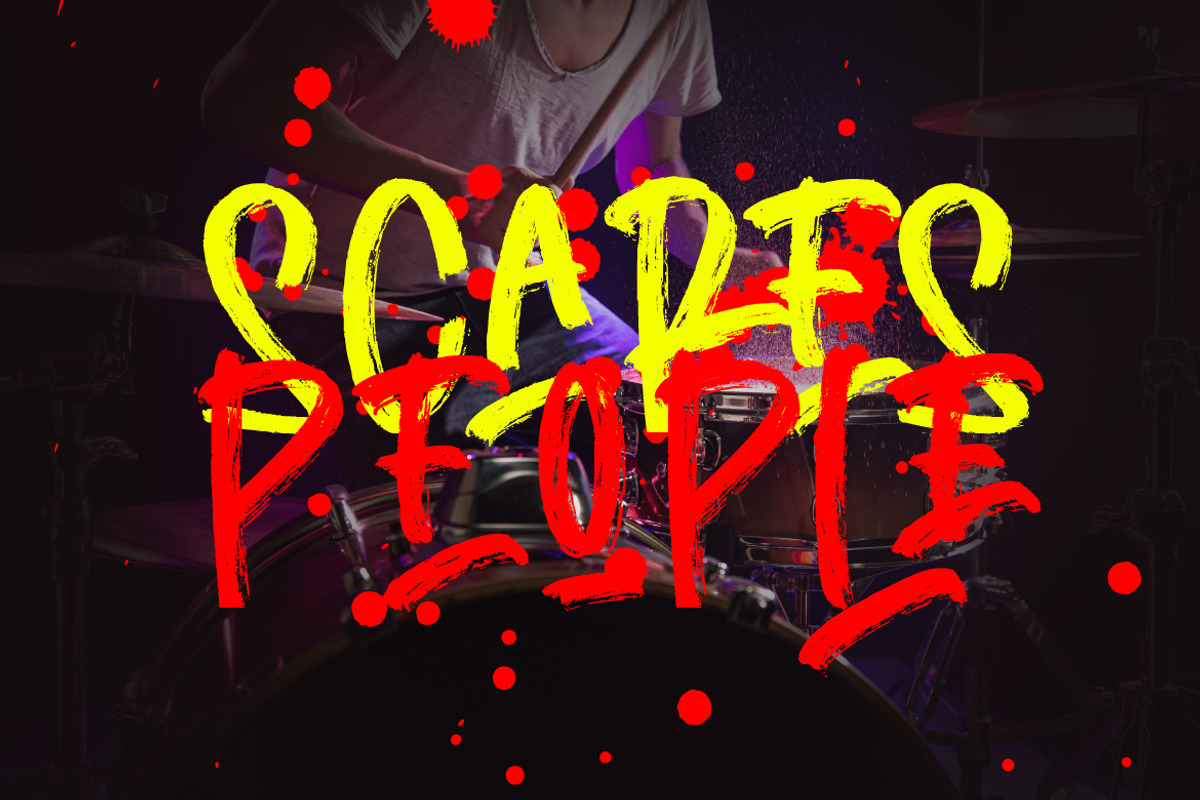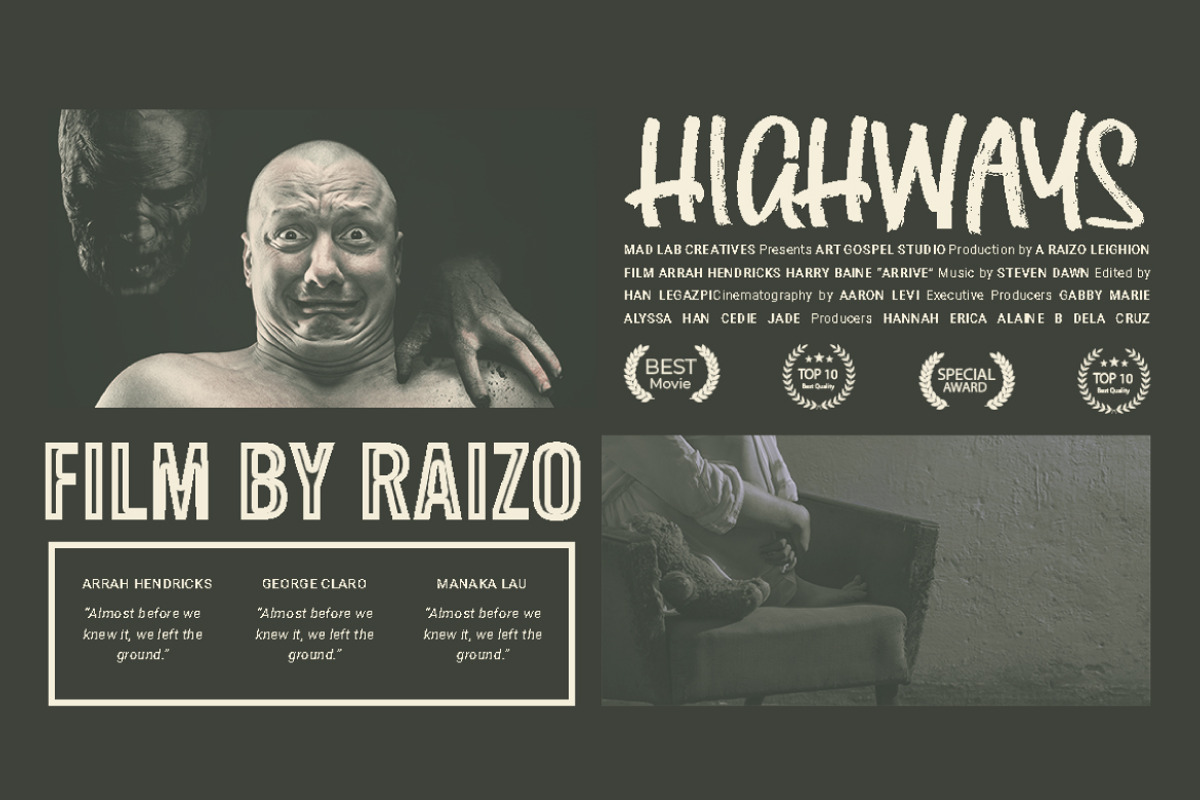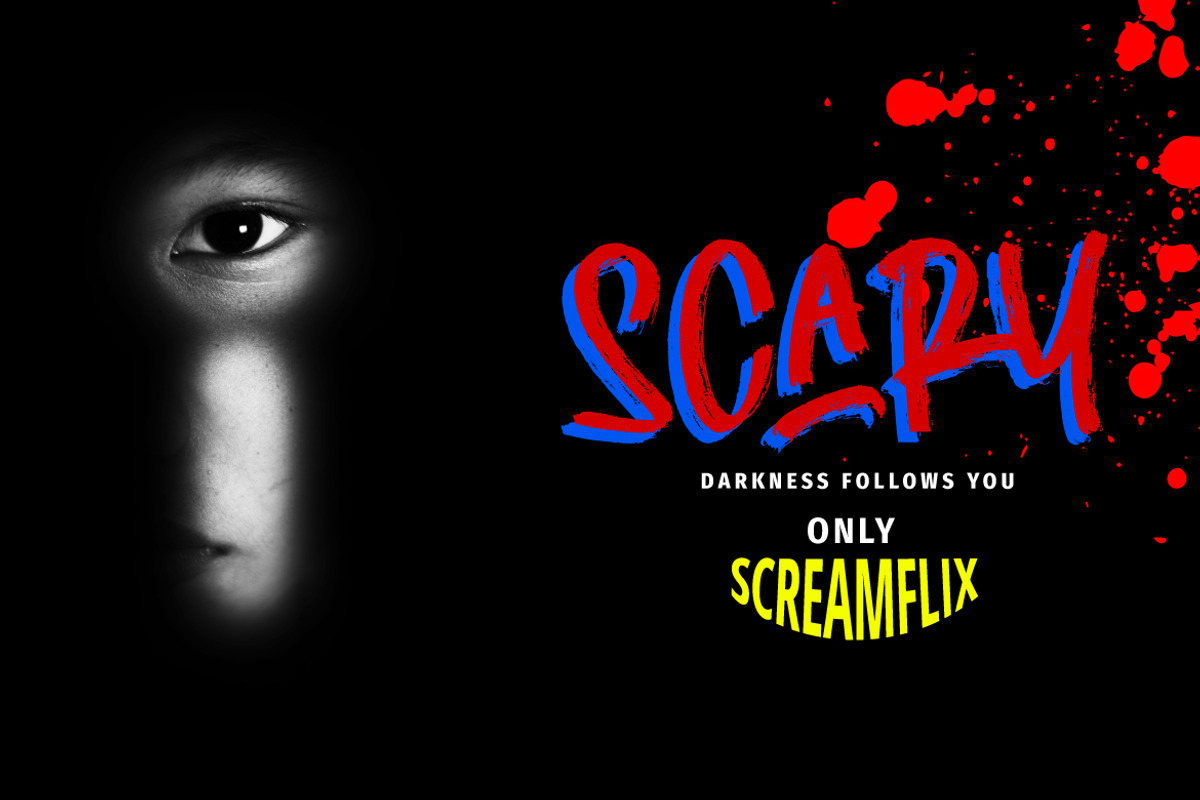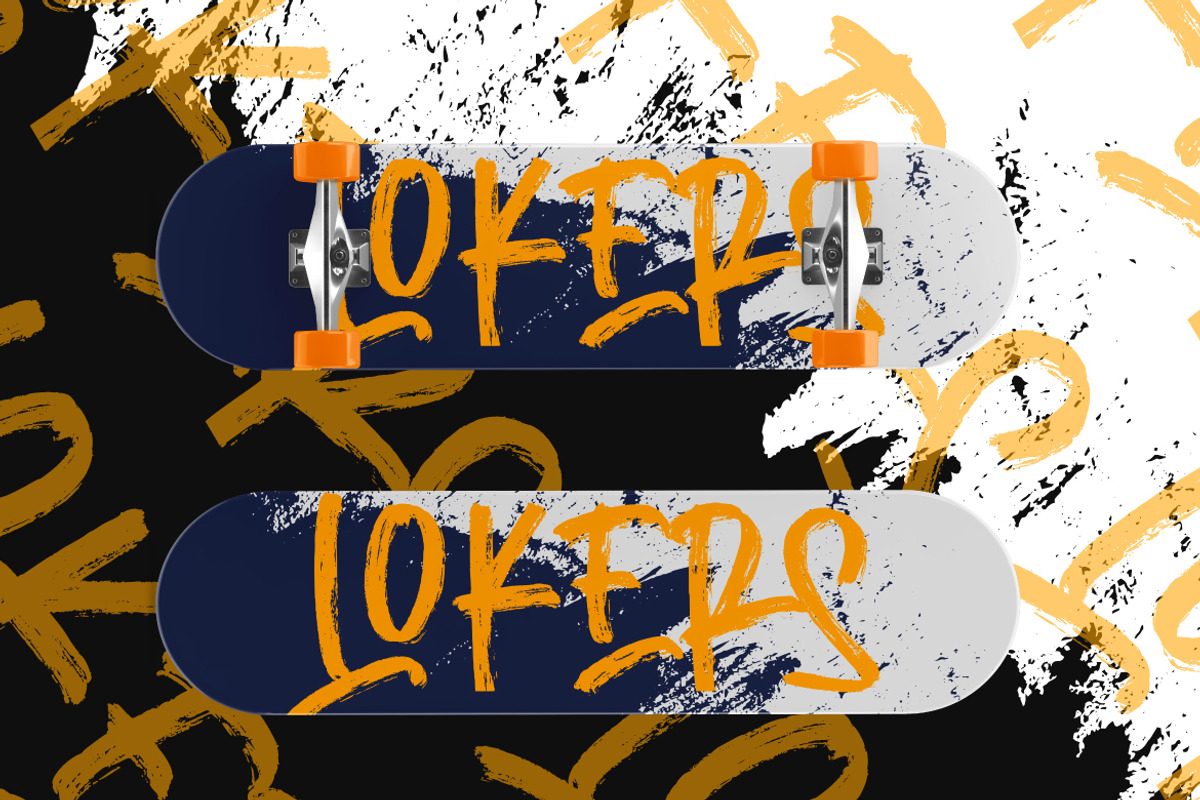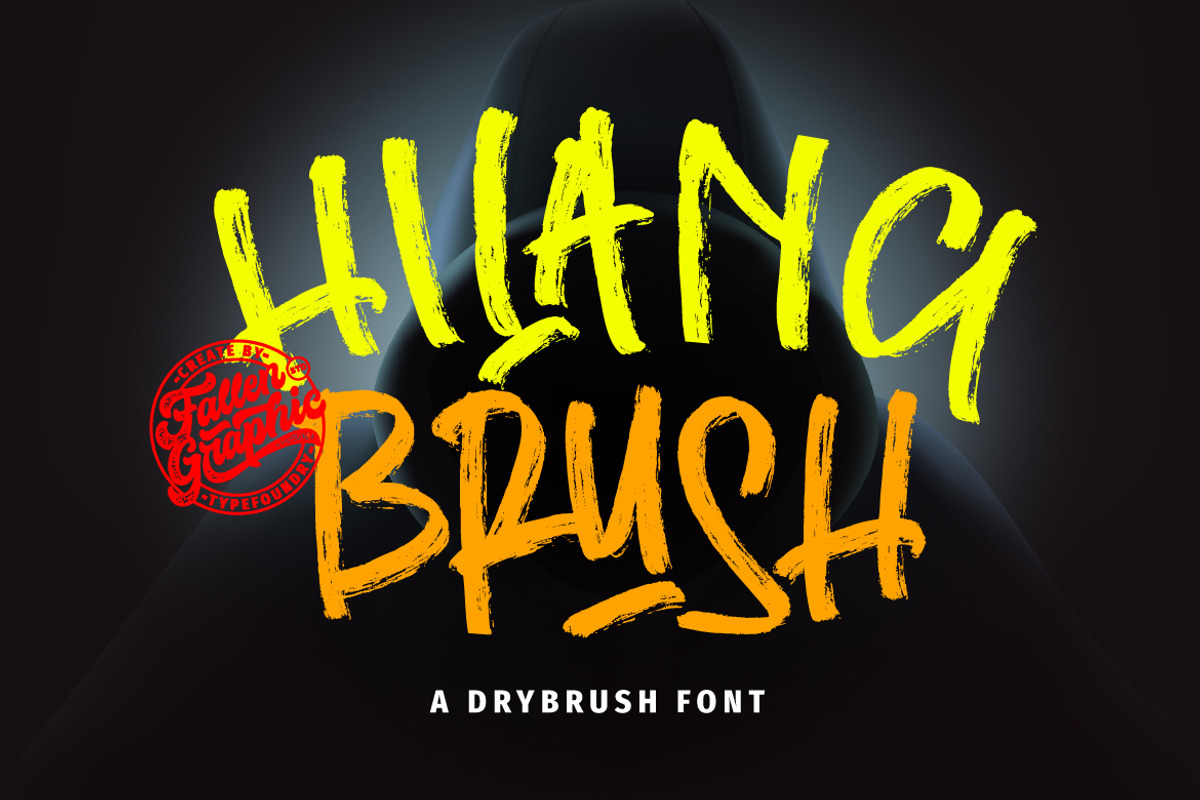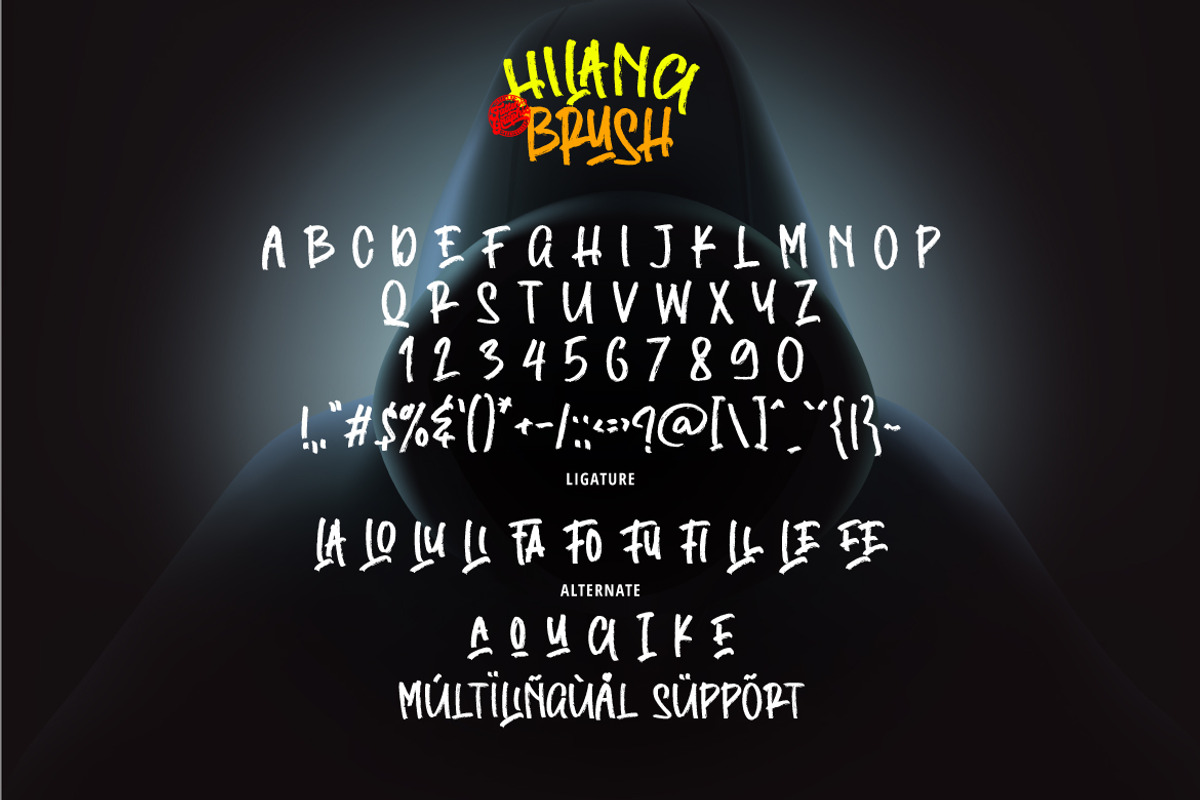
Hilang Brush
Hilang Brush is a strong handwritten brush with bold and casual style. This handmade fonts comes with great legibility and readability.
Each stroke is carefully drawn to display great flow and harmony with a natural look. You can try many variations by accessing opentype features.
Hilang Brush are suitable for branding projects, clothing companies, advertising, product packaging and a variety of your creative projects.
- Numerals and Punctuations (OpenType Standard)
- Many of alternates